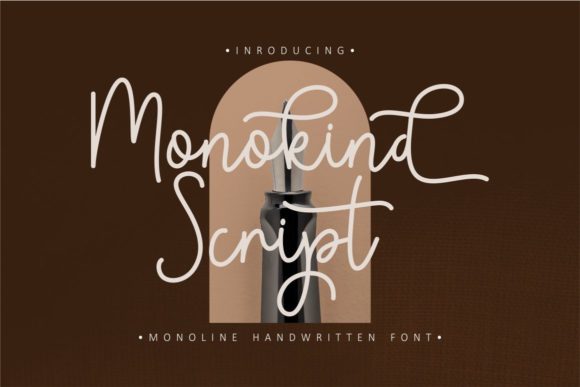
Monokind Script: A Friendly Handwritten Typeface
Creative Applications and Use Cases
- Logo Design and Brand Identity: It helps create memorable logos for lifestyle brands, bakeries, boutiques, and creative studios that want to appear approachable and genuine.
- Packaging Design: Add a handcrafted feel to product labels, especially for artisanal goods, cosmetics, or specialty foods.
- Editorial and Web Design: Use it for pull quotes, article titles, or website headings to break the monotony of standard serif or sans serif fonts and guide the reader’s eye.
- Social Media Graphics and Posters: Its clear, engaging style is perfect for announcements, inspirational quotes, and event promotions that need to stand out in a fast-scrolling feed.
- Invitations and Merchandise: From wedding invitations to T-shirt designs, it lends a custom, hand-lettered quality that feels special and unique.